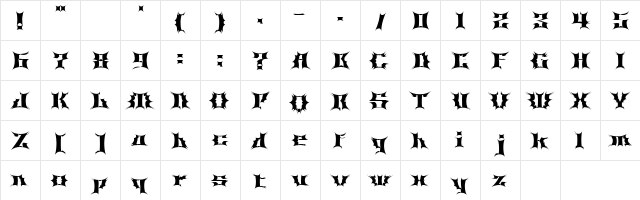
Corona sz
Design Context for Corona Typeface
Corona is a composed and adaptable typeface that performs quietly and consistently across a wide range of design contexts.